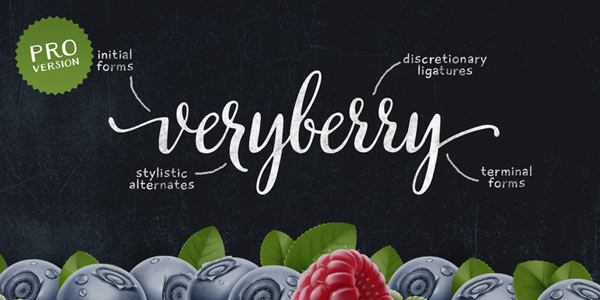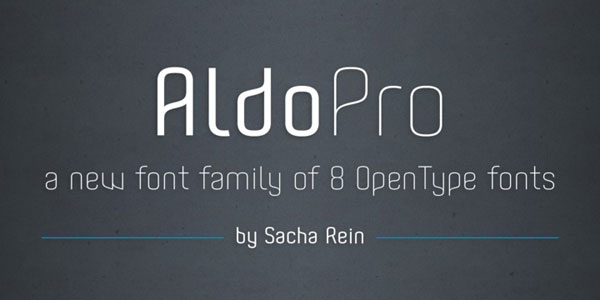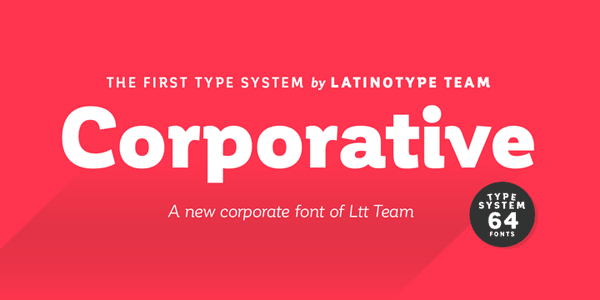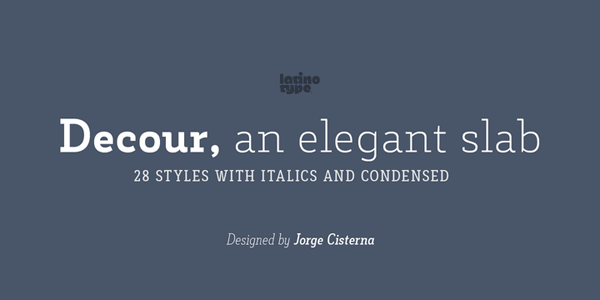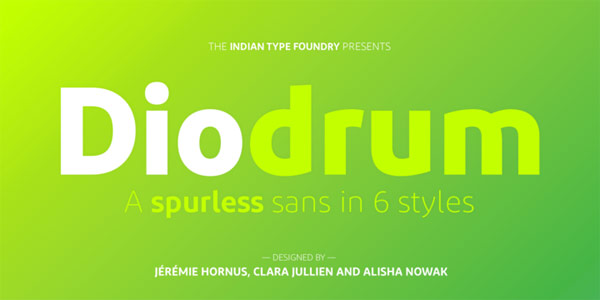
A great collection of best fonts from 2015!
Over the half of 2015 is already done. It’s time to look back to show you the best fonts of 2015. All fonts in the list below have been designed or at least published in 2015. In order to make it more clear, I have divided the list into five categories consisting of ‘Sans’, ‘Serif’, ‘Script’, ‘Hand-Drawn’, and ‘Specials’.
I plan to continue this collection of best fonts from 2015 until the end of the year. Of course the choice is based on my personal taste and what I found on the Internet. The sans serif typefaces are slightly in the majority that is probably also due to my personal taste.
Here it is, my ‘Best Fonts 2015’ selection!
Best sans fonts of 2015:
Touche is a new release by the renowned Indian Type Foundry. The typeface is based on a sturdy design. Its 5 weights ranging from Light to Bold. Type designer Jonny Pinhorn has created this family for the use as display font, whether print media or on screen.
Diodrum, another typeface from Indian Type Foundry and another nominee in our best fonts 2015 collection. This 6 styles sans family offers a friendly and modern look. You can use it for corporate design projects, websites or mobile app interfaces. Diodrum’s typeface is characterized by smooth curved lines.
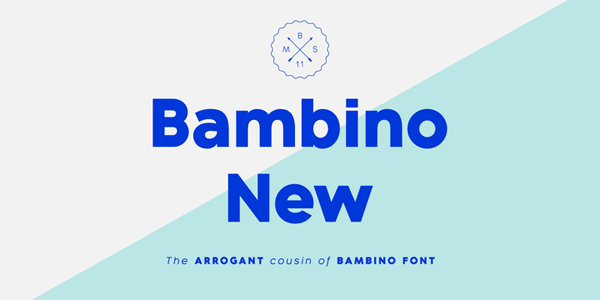
Bambino New is a geometric sans created by Serbian type designer Milos Mitrovic of studio Mindburger. It’s actually an improved version of an earlier release. Bambino New is equipped with 14 fonts consisting of 7 weights plus matching Italics. It provides improved readability and a more unique personality.
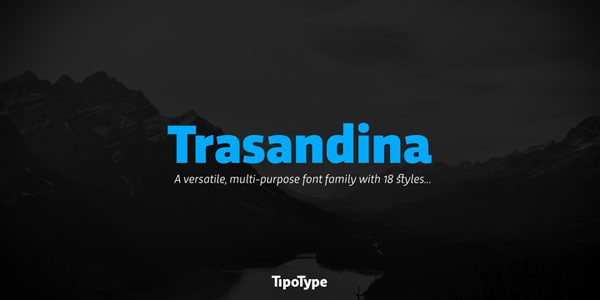
With 18 versatile styles, Trasandina is a font family for multi-purpose. The typeface has been created by Fernando Díaz, a type designer from Uruguay and co-founder of foundry TipoType. Trasandina supports over 200 languages and is equipped with numerous OpenType features.
This is Chronica Pro, a release from studio Mostardesign. It’s a family for highly professional use. Designer Olivier Gourvat has created this modern sans serif with great attention to detail and versatility. This legible typeface is a good choice for editorial design, branding, graphic projects, signage, apps, websites, ebooks, and much more.
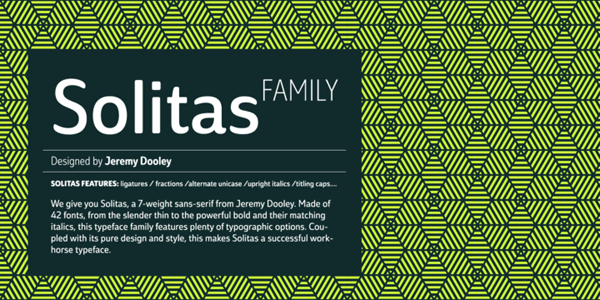
Solitas is a distinctive sans-serif with round edges. Designer Jeremy Dooley of foundry insigne has created this family of 42 styles. It includes lots of typographic options such as fractions, ligatures, alternate unicase, upright italics, and titling caps.
TT Chocolates is the name of a 10 fonts type family created by Ivan Gladkikh of foundry TypeType. It’s a geometric grotesque optimized for websites and mobile applications as well as print products.
Nevo is a sans serif with a very unique touch. Stew Deane, a United Kingdom-based type designer has created this font family for anything from advertising and branding to web and screen design.
Delm is a font family by type designer Chatnarong Jingsuphatada of foundry Typesketchbook. It’s is a sans with soft, round edges and a geometric structure. This legible typeface is a great fit for multiple applications.
TT Bluescreens by designer Ivan Gladkikh of foundry TypeType is a family of 30 fonts including 2 free versions. It’s a sans serif display font with a narrow look. It is intended for the use in movie titles, credits, and quotes.
Best serif fonts of 2015:
Brenta is a crisp serif family designed by Ludwig Übele. Its typeface is characterized by open counters and well balanced proportions. The German graphic and type designer has equipped this classic serif family with plenty of OpenType features and a set of alternate stencil characters.
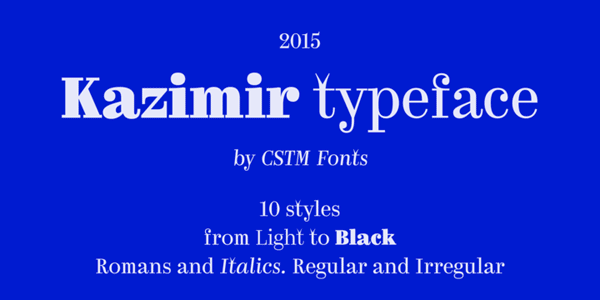
Due to its special design, this typeface would also be something for the ‘Specials’ section. Kazimir‘s design is a new interpretation of Russian book and magazine typography known from late 19th and early 20th century. The family comes with different styles, each consists of five weights ranging from Light to Black.